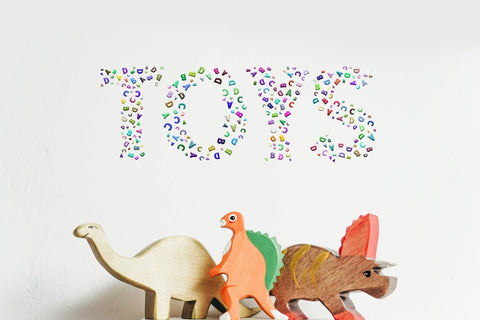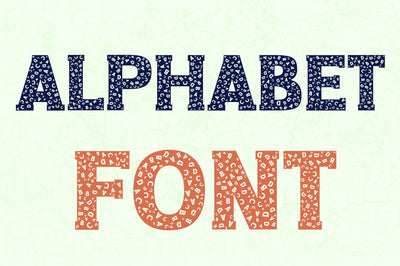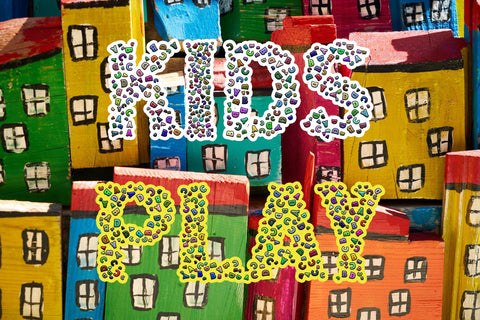
Alphabet and Letters Font
Alphabet is a bold and neat display font. No matter the topic, this font will be an incredibly asset to your fonts’ library, as it has the potential to elevate any creation.
Set of three fonts Alphabet Font, Letters Font an Color Letters SVG Font.